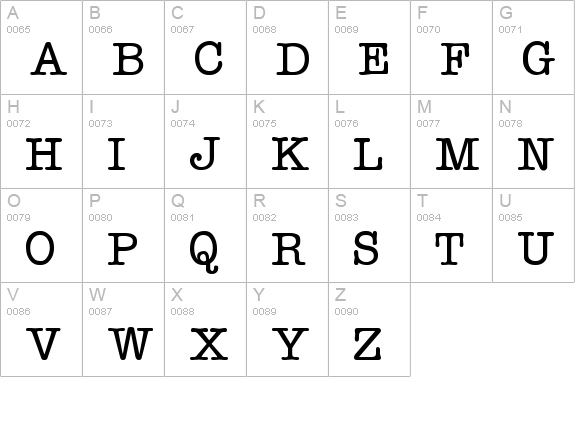
Introducing Typo font, a versatile and stylish typeface that is perfect for all your design needs. With its modern and clean aesthetic, Typo font adds a touch of elegance to any project. Whether you're creating a logo, poster, or website, Typo font is sure to make a bold statement. The best part? Typo font is completely free to download at FontsMarket.com. That's right, you can access this stunning font at no cost and use it in your personal and commercial projects without any restrictions. Don't miss out on this amazing opportunity to elevate your designs with Typo font. Download it today and let your creativity soar!